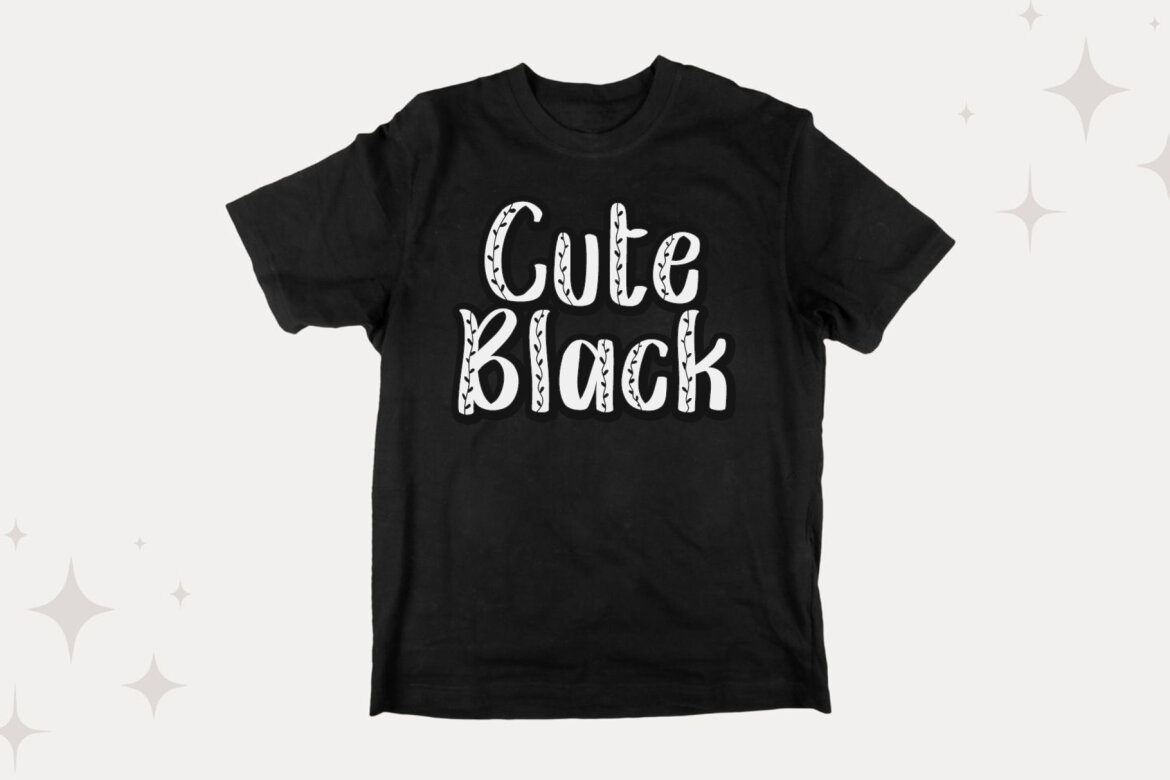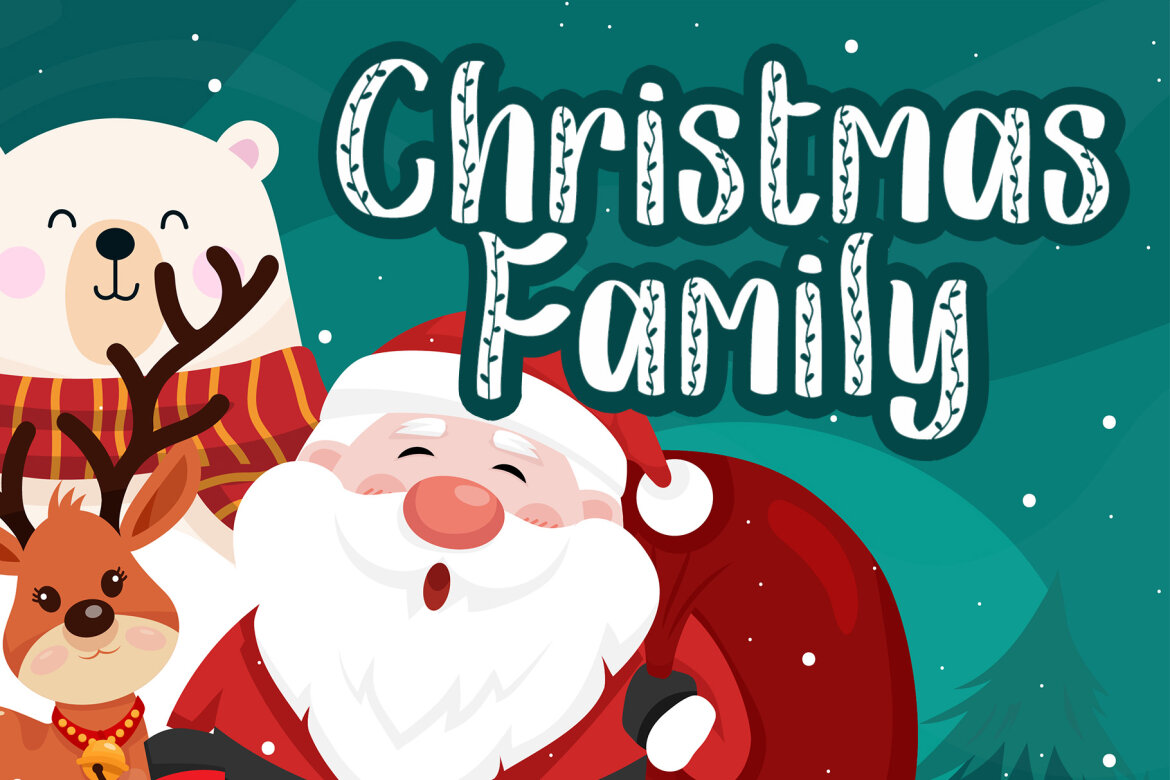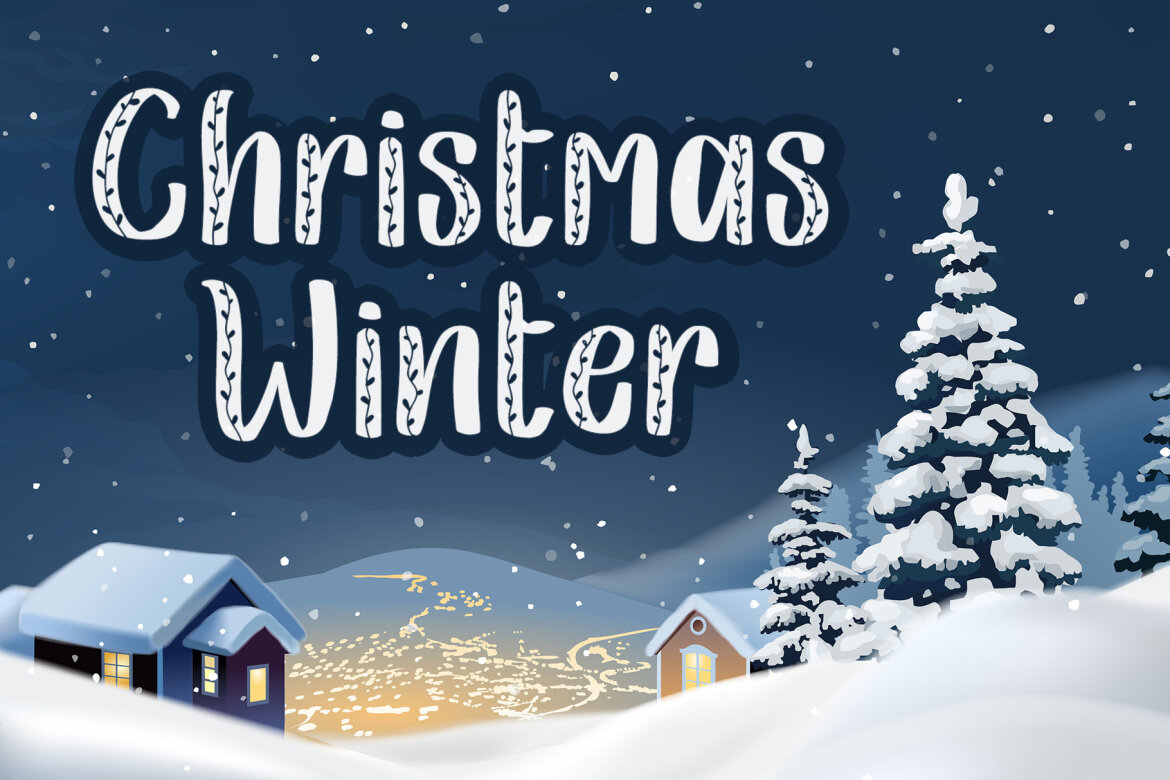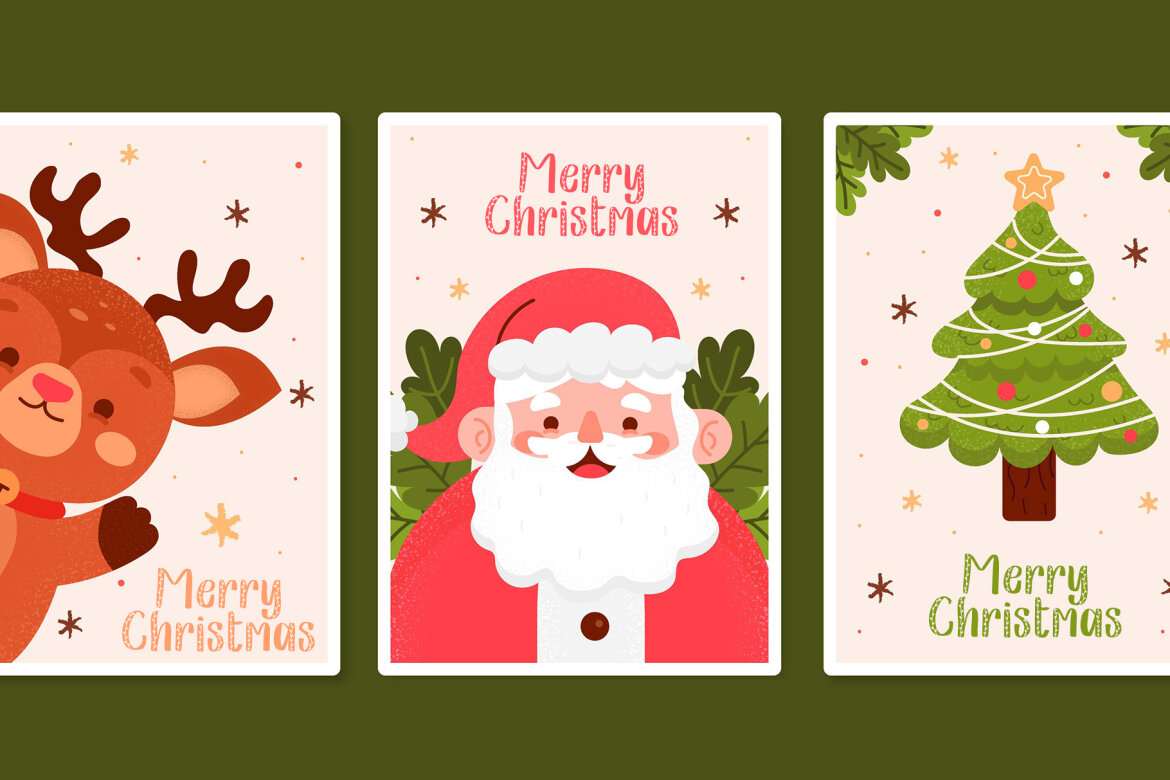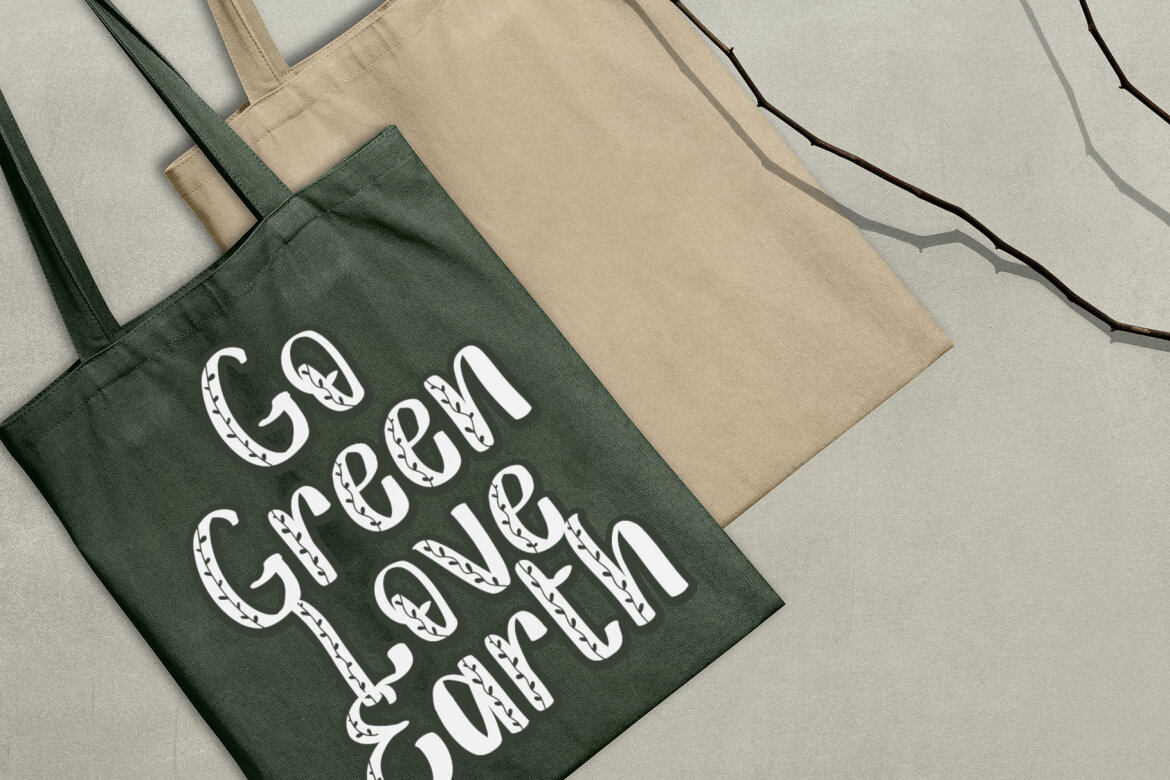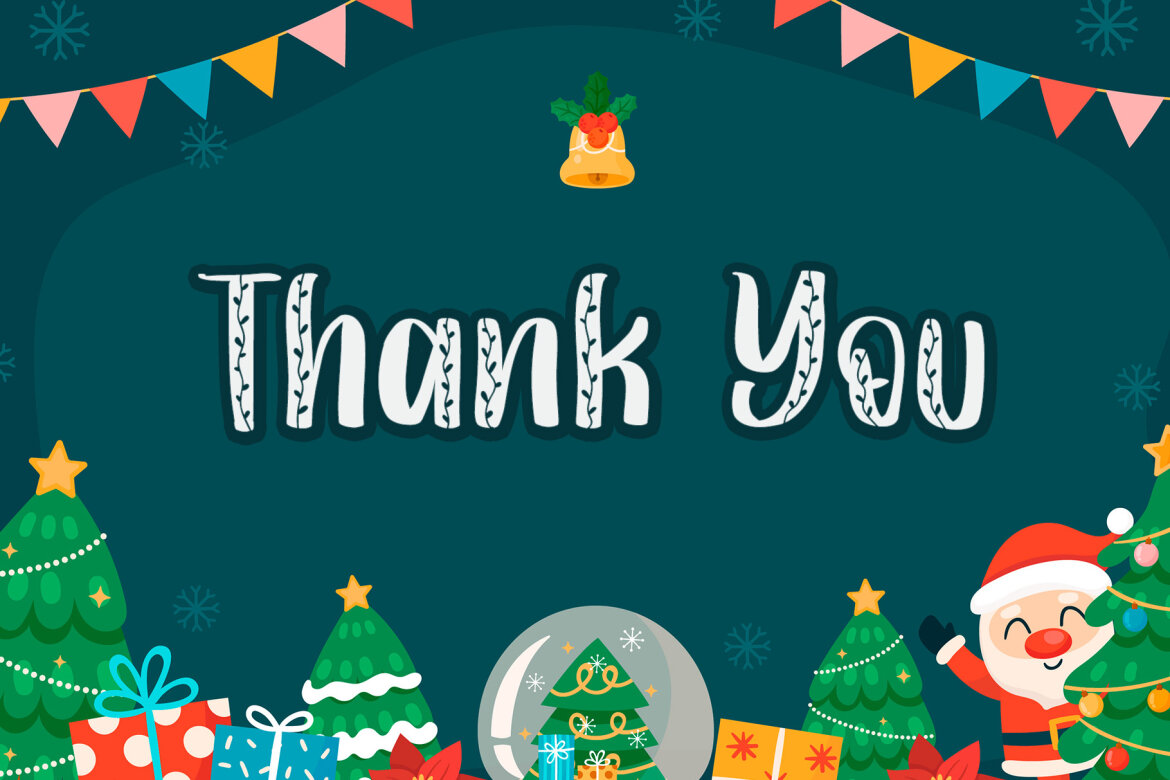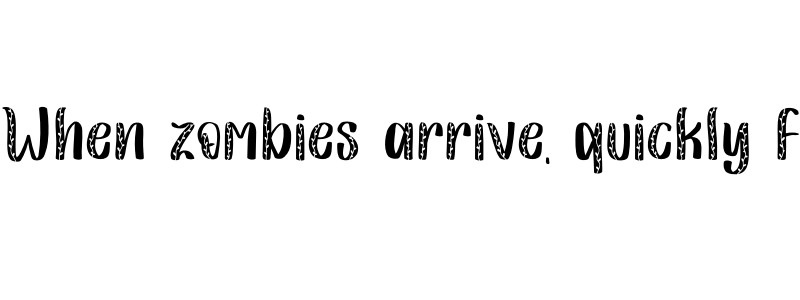
Christmas Leaf - Free Font
Christmas Leaf is a crafty and cute display font. Christmas leaf is the perfect choice for any children’s activity, Christmas, Thanksgiving, poster, logo, packaging, or school project.